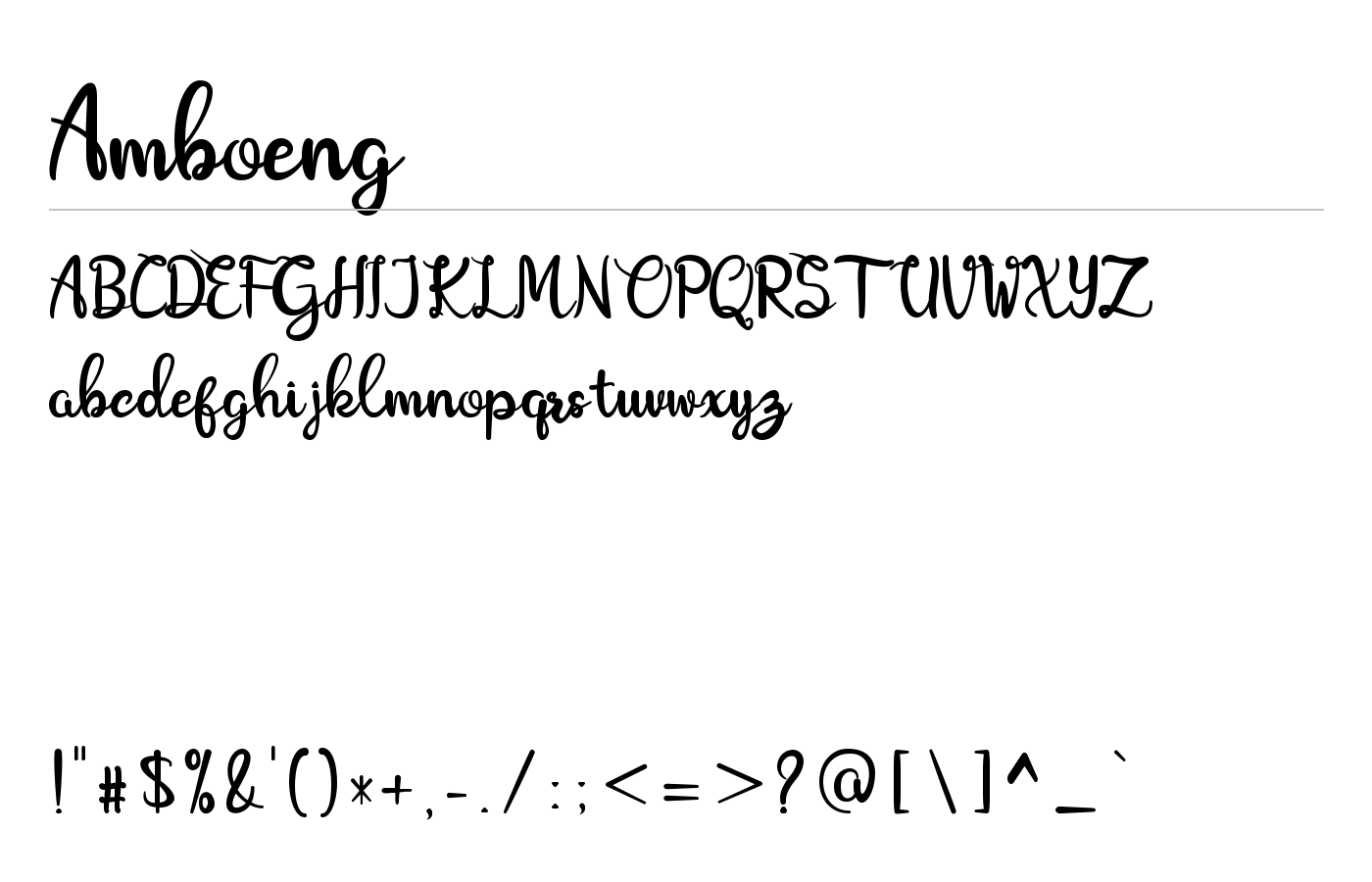
Amboeng is a playful and elegant script font with a handwritten feel, featuring smooth, flowing strokes and charming flourishes on its uppercase letters. Its moderate weight and tall x-height make it friendly and readable, perfect for creative branding, invitations, and casual headlines. This font adds a personal, warm touch to designs seeking a stylish yet approachable vibe.
Amboeng Font
About Amboeng Font